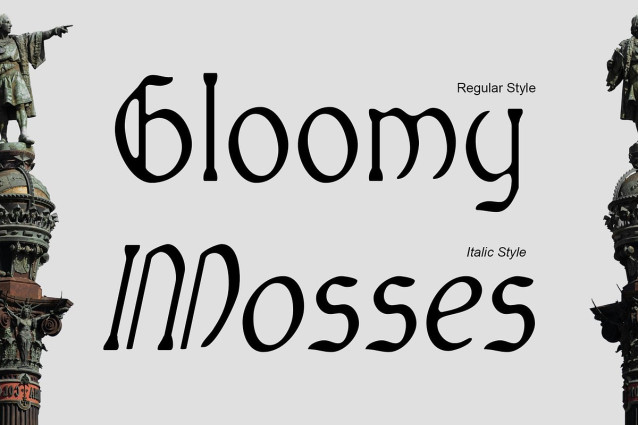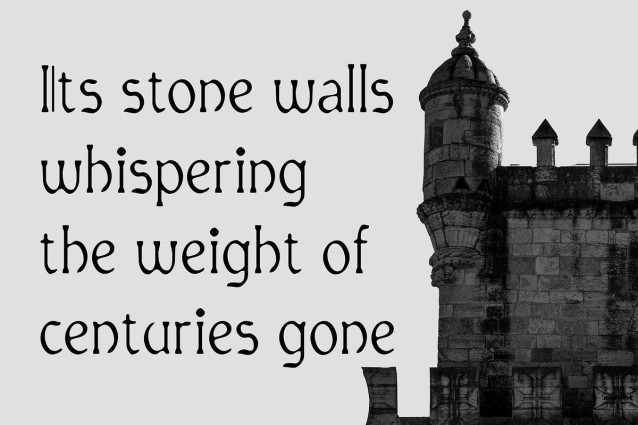
CS Aymeric Drawn Font
CS Aymeric Drawn Font – This is a striking Gothic display font defined by its overflowing lines and dramatic presence. Rooted in traditional Gothic forms, it carries the weight of history while introducing a contemporary voice. Its design creates an immediate sense of strength, making it perfect for projects that demand impact and resonance.
Hand-Drawn Texture for Artistic Depth What sets fonts apart is its handmade texture, which enriches the strong Gothic shapes with character and artistry. The drawn effect softens the rigidity of classic forms, adding organic detail and visual intrigue. This handcrafted touch ensures that every letter feels alive, making the font especially suited for creative projects that embrace individuality.
A Blend of Mystery and Heritage Infused with heritage-inspired forms, the font evokes a sense of mystery and drama. It resonates with historical echoes while presenting itself as a fresh, artistic interpretation of Gothic design. This balance of tradition and modern craft gives designers a versatile tool to create atmospheres that feel timeless yet expressive.
Perfect for Branding, Posters, and Book Titles The font thrives in bold applications, from branding that seeks to stand apart to dramatic posters and evocative book titles. Its balance of strength, heritage, and handmade artistry makes it adaptable across creative contexts, ensuring designs that feel both powerful and unique.